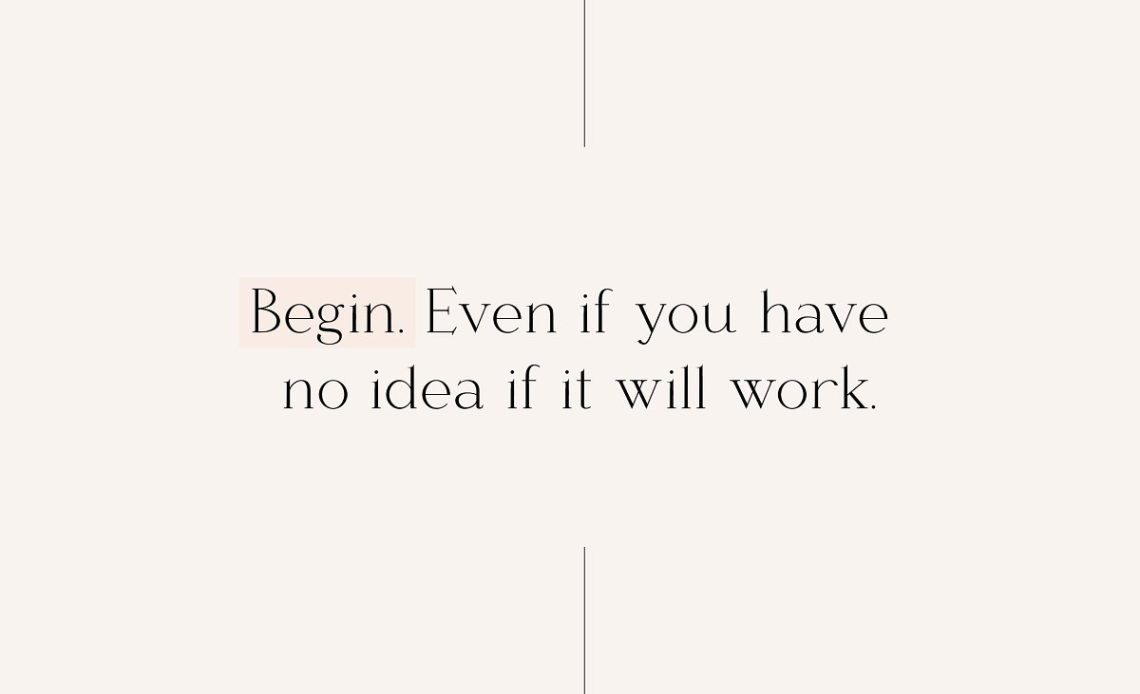
Welcome to the world of Woman Serif Font, the Best Font for Luxury Brands! If you're searching for a unique font to make your brand stand out, then you've come to the right place. Created by Elvina Gafarova, this elegant font family is perfect for those who want to add a touch of sophistication and luxury to their brand.
With Woman Serif Font, you can create stunning visuals that will captivate your audience. The font comes with both OTF and TTF files, making it easy to use on any platform. Additionally, the font family includes upper and lowercase letters, numbers, and punctuations, giving you complete flexibility to create your designs.
This beautiful font family comes in three different styles: regular, italic, and bold, allowing you to choose the one that best suits your needs. Plus, Woman Serif Font is available in a wide range of languages, including English, German, French, Spanish, Italian, Danish, Finnish, Portuguese, Swedish, Norwegian, Dutch, Indonesian, Luxembourgish, Icelandic, Cornish, Hungarian, Filipino, and Turkish.
Whether you're creating a new logo, designing a website, or developing marketing materials, Woman Serif Font is the perfect choice. Its elegant and luxurious design will help elevate your brand and make it stand out from the crowd. With Woman Serif Font, you'll be able to create visuals that are both eye-catching and memorable.